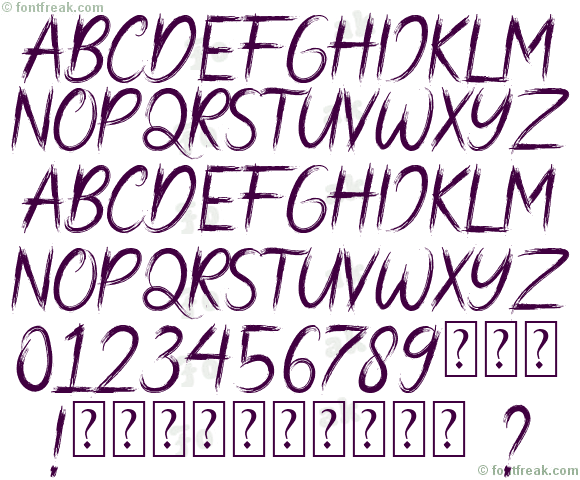
Bad Hunter Brush
About Bad Hunter Brush
Bad Hunter Brush, created by Abas Creative in 2019, is a captivating handwritten font that embodies a unique blend of rugged charm and artistic flair. This font features a brush script style characterized by its bold, expressive strokes and raw edges, giving it an organic and authentic feel. The varying stroke weights and slight irregularities enhance its handmade quality, making it visually dynamic and engaging. With its open spacing and fluid letterforms, Bad Hunter Brush effectively captures the essence of creative spontaneity, making it perfect for a wide range of applications.
This versatile font is ideal for use in wedding invitations, where its informal elegance can add a personal touch to the celebration. It also shines in the realm of movie posters, lending a dramatic flair that can catch the viewer's attention. Additionally, restaurant menus can benefit from this font's artistic vibe, making dishes feel more enticing and unique. Content creators will find it useful for social media graphics, where its distinctive look can help their posts stand out in crowded feeds. Graphic designers and small business owners will appreciate its ability to convey both professionalism and creativity.
What truly sets Bad Hunter Brush apart is its ability to combine a hand-crafted aesthetic with modern usability, making it a go-to choice for those seeking to make a memorable impression in their visual communications. Its unique character and charm can effortlessly enhance any design, ensuring your projects leave a lasting impact.